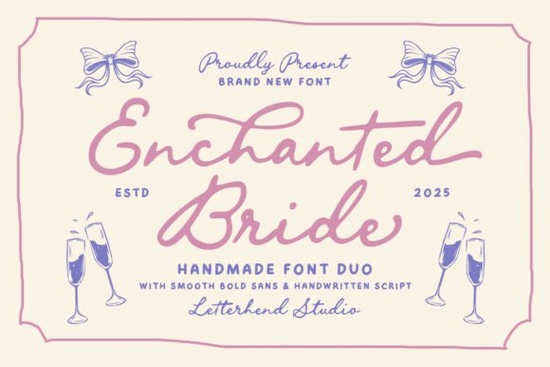
If you’re working on wedding stationery, romantic branding, or heartfelt craft projects, Enchanted Bride might be the font duo you’ve been quietly searching for. It’s not flashy or overdesigned just a thoughtful pairing of a clean, bold sans and a soft, flowing script that feels like it was made for love notes, invitations, and keepsakes. Whether you’re designing for clients or making something personal, this set gives you room to balance structure with emotion.
What makes this font duo work so well together?
The real charm of Enchanted Bride is how naturally the two styles complement each other. The sans-serif is sturdy and modern great for names, dates, or headlines while the script brings in that human, hand-lettered warmth. You don’t need to force contrast; it’s built in. Use the bold sans for “Save the Date” and the script for “with love, always” suddenly your layout has rhythm without looking staged.
It’s especially useful if you’re creating:
- Wedding invites or vow books
- Bridal shower signage or menus
- Personalized gifts like mugs, totes, or framed prints
- Small business branding for florists, bakers, or photographers
And because both fonts are carefully crafted to share the same visual weight and spacing, mixing them doesn’t feel chaotic. That’s harder to pull off than it sounds check out The Wedding Signature if you want another elegant pairing that handles hierarchy well.
How does it compare to other romantic script fonts?
There’s no shortage of pretty scripts out there. But what sets Enchanted Bride apart is its restraint. Many romantic fonts go heavy on swirls or exaggerated flourishes which can be gorgeous, but also overwhelming. This one keeps things graceful without being fussy. The strokes are smooth, the curves gentle, and the spacing generous enough to stay readable even at smaller sizes.
If you’ve used Loving Font or Beautiful Chamomile, you’ll notice Enchanted Bride sits somewhere between them less casual than Loving, less ornate than Chamomile. For something with a similar handmade vibe but more playful bounce, Palm Bay Social is worth a look. And if you need something ultra-delicate for fine details, Lovely delivers that whisper-soft touch.
A quick checklist before you start designing:
- Pair wisely let the sans handle structure, the script add soul.
- Test readability especially if printing small or on textured paper.
- Layer with simple elements watercolor textures, thin borders, or muted palettes let the font shine without competing.
Fonts like this aren’t about shouting for attention. They’re the quiet detail that makes someone pause and say, “This feels special.” If that’s the kind of feeling you want your designs to carry, Enchanted Bride is worth keeping in your toolkit.